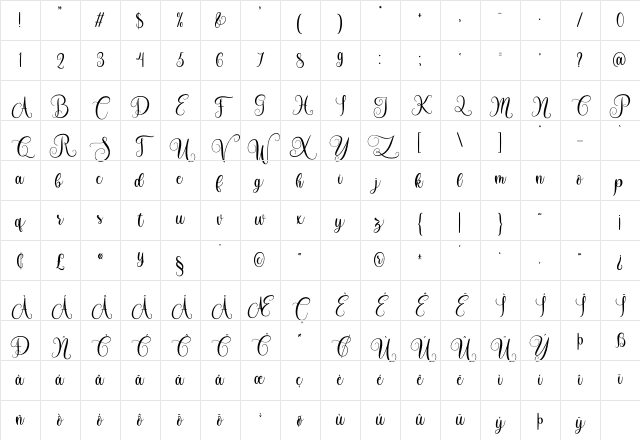
Jacyking Regular Free Font
Jacyking Regular
Foundry: Stringlabs Studio
Design Context for Jacyking
Jacyking is a composed and adaptable typeface that performs quietly and consistently across a wide range of design contexts.
Pro Tip: Use Jacyking in both headline and body roles to test its range before committing to a single application.